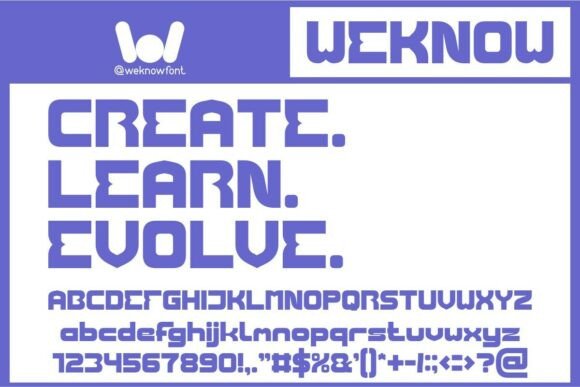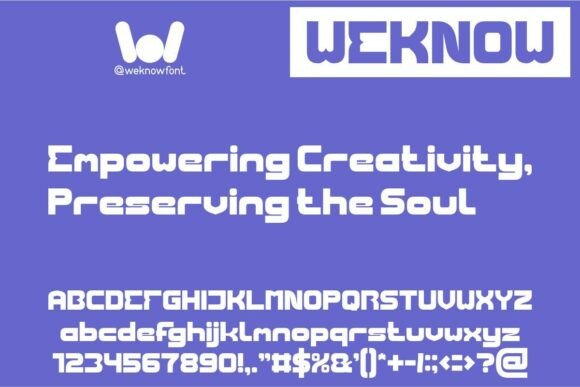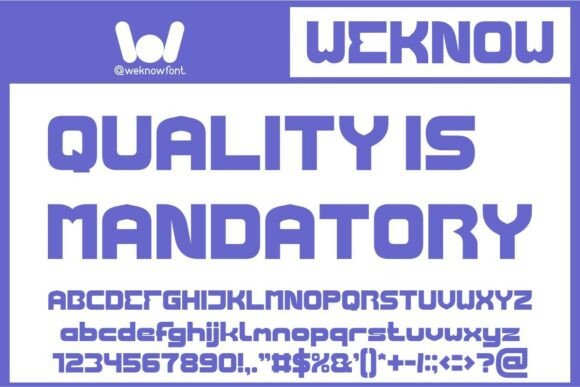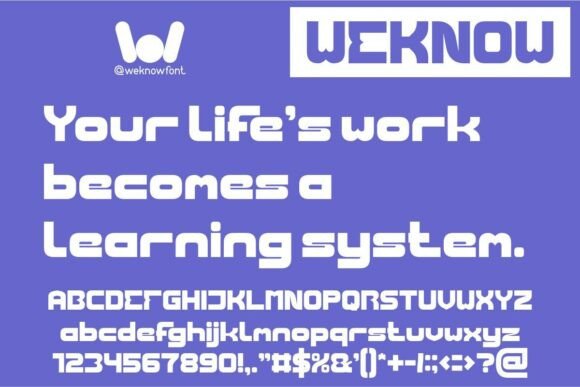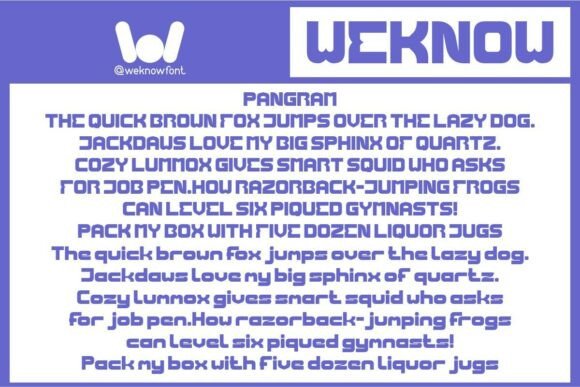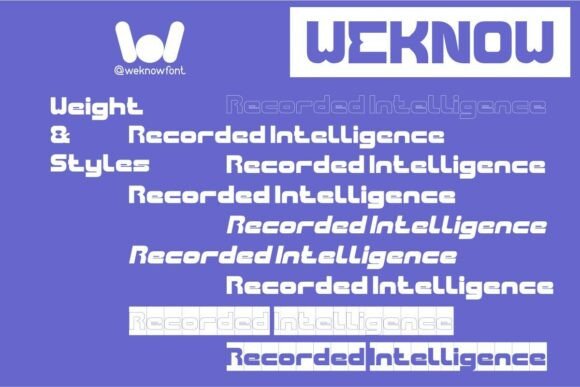
Introduction to Recorded Intelligence Font
Harness the power of simple elegance with Recorded Intelligence, a geometric display font that effortlessly marries minimalism and boldness.
This versatile yet fundamental design is suited for a range of applications, uplifting your logo or logotype, bringing sophistication to your corporate and brand identity, and adding a distinct flavor to apparel designs Not just limited to business purposes, it shines equally in the entertainment industry, enhancing music, game, and movie graphics and conceptualizing eye-catching headlines for magazines, books, and comics.
Key Features of Recorded Intelligence Font
Why Choose Recorded Intelligence Font?
Recorded Intelligence Font offers exceptional quality and versatility, making it a valuable addition to your design toolkit. Whether you’re creating for personal projects or commercial use, Recorded Intelligence Font delivers professional results.